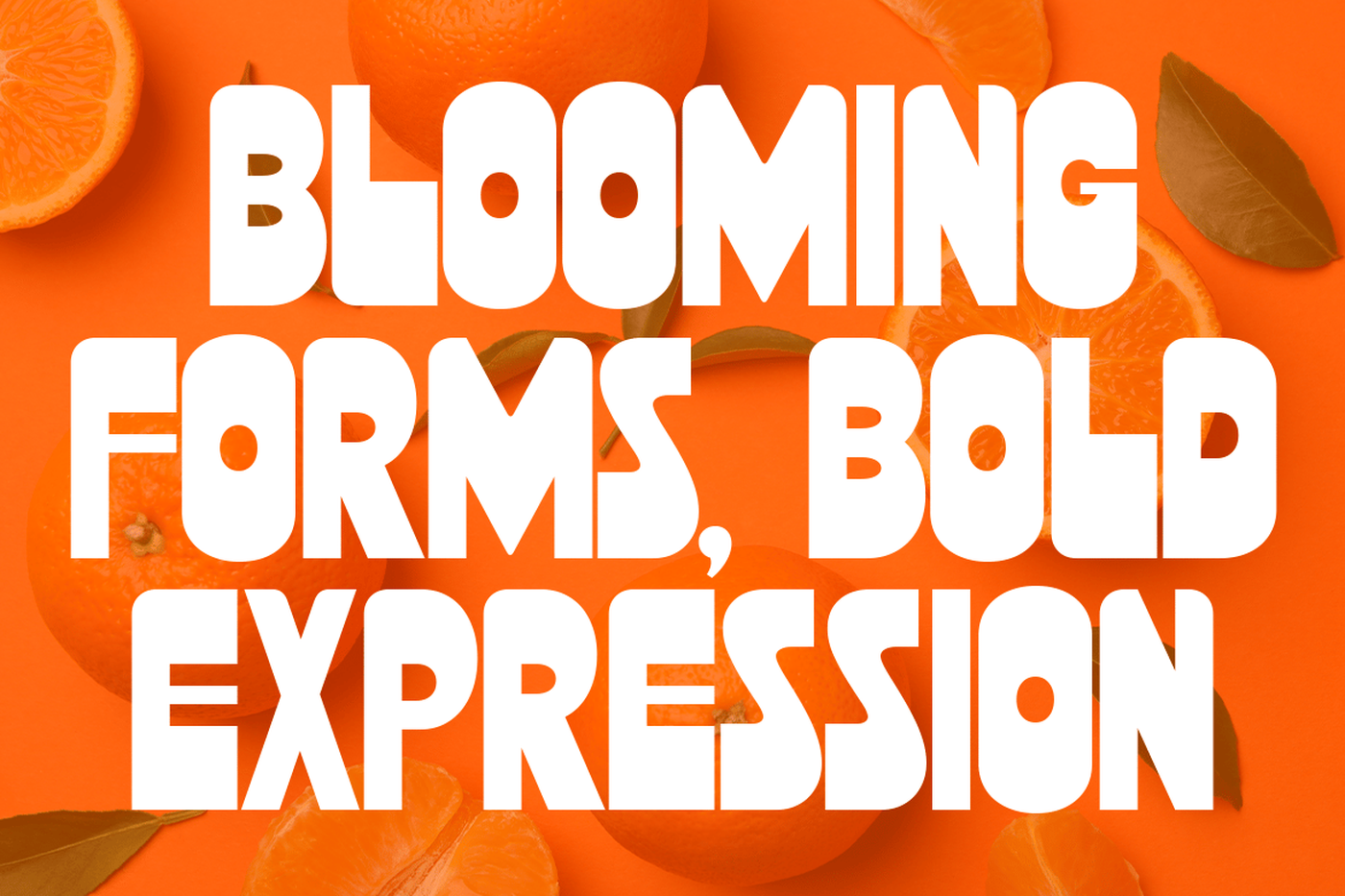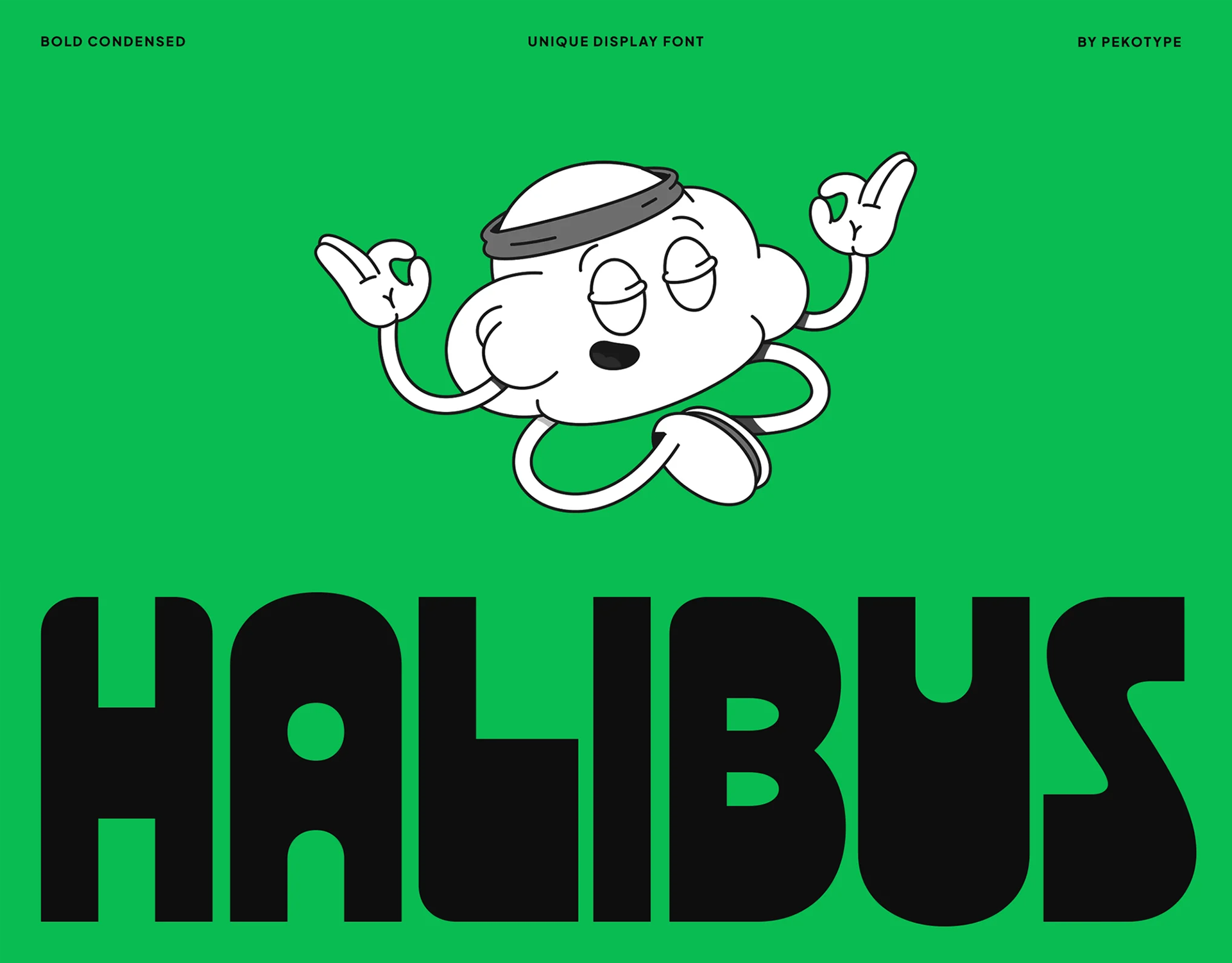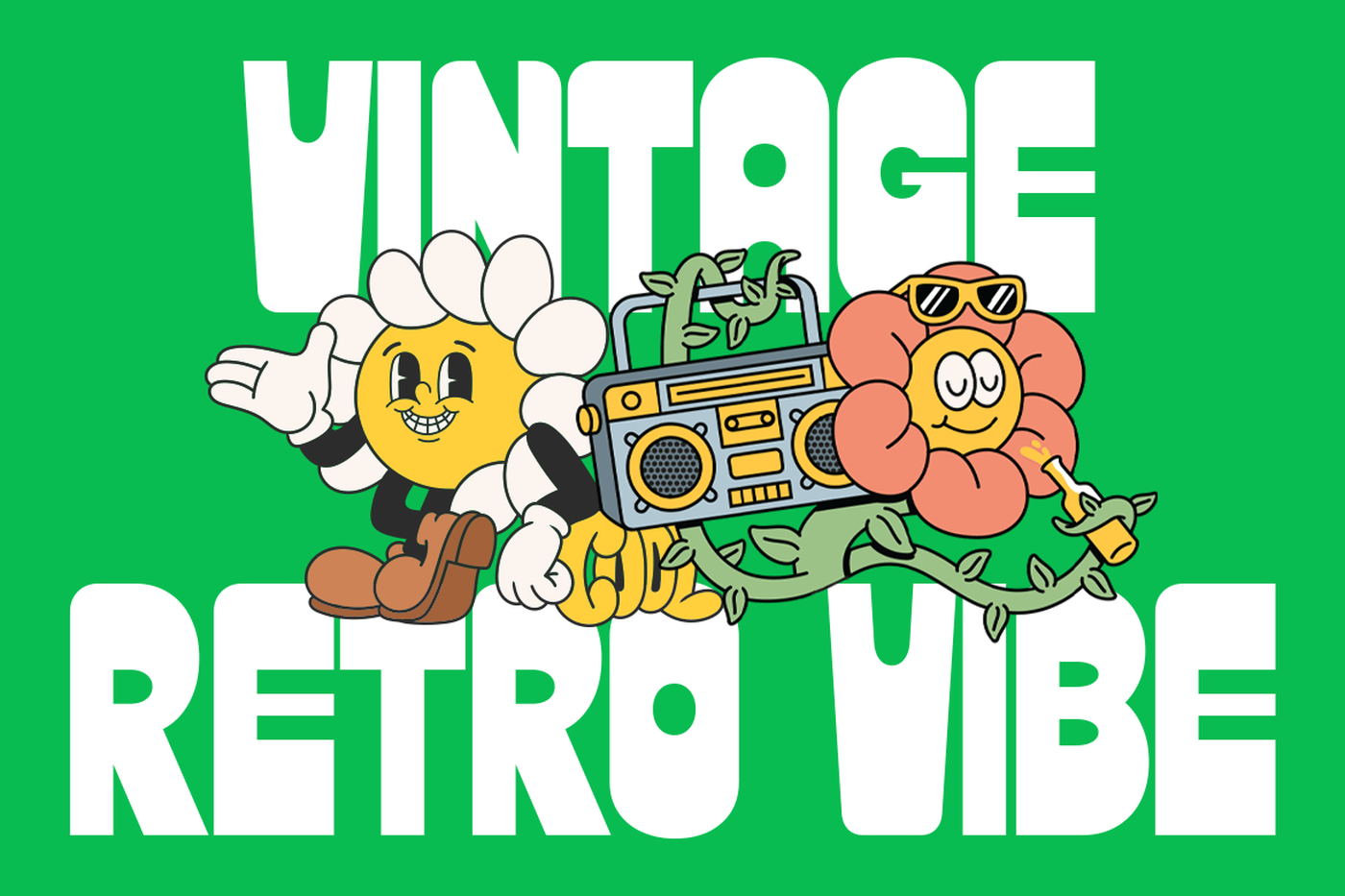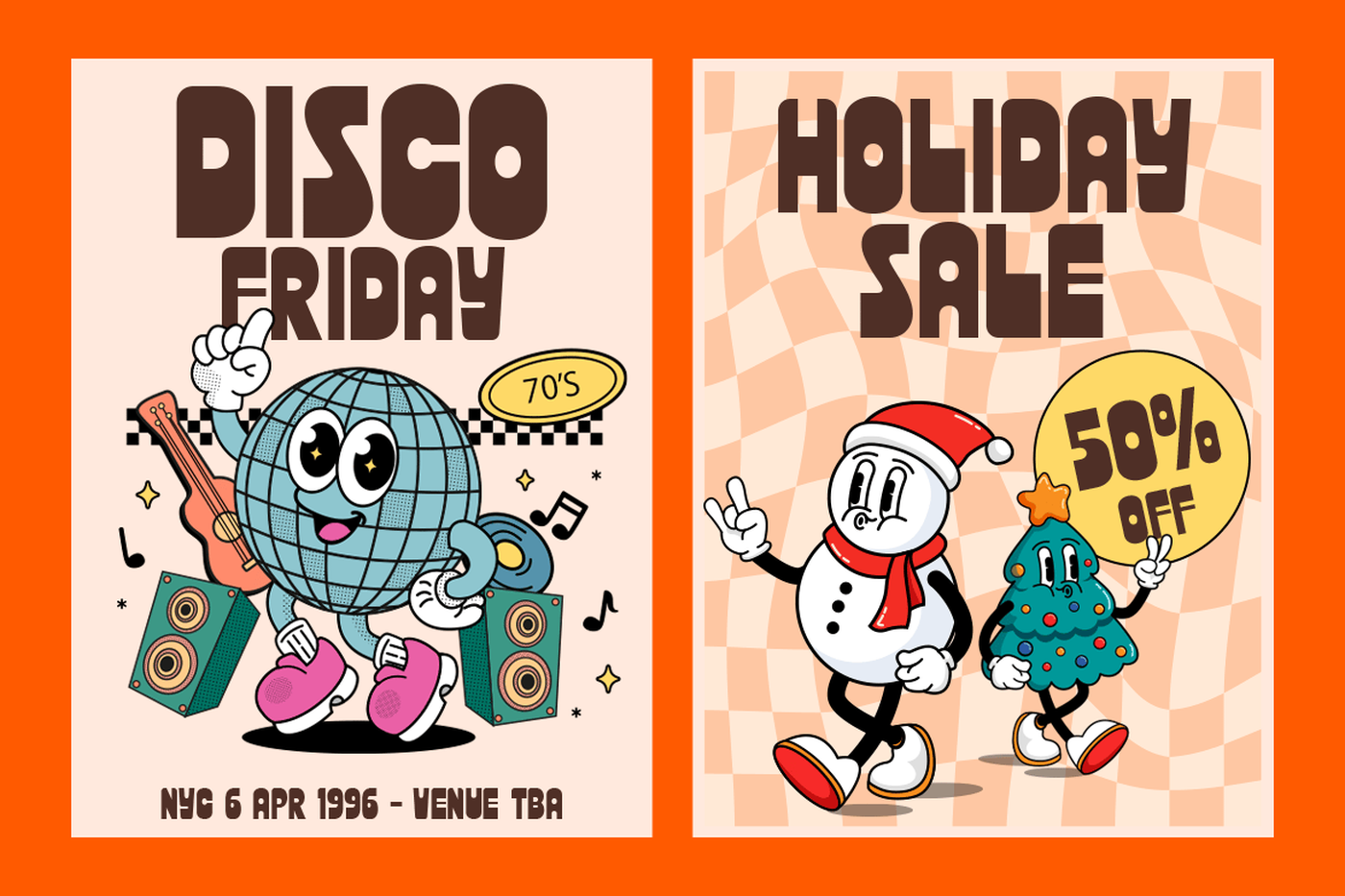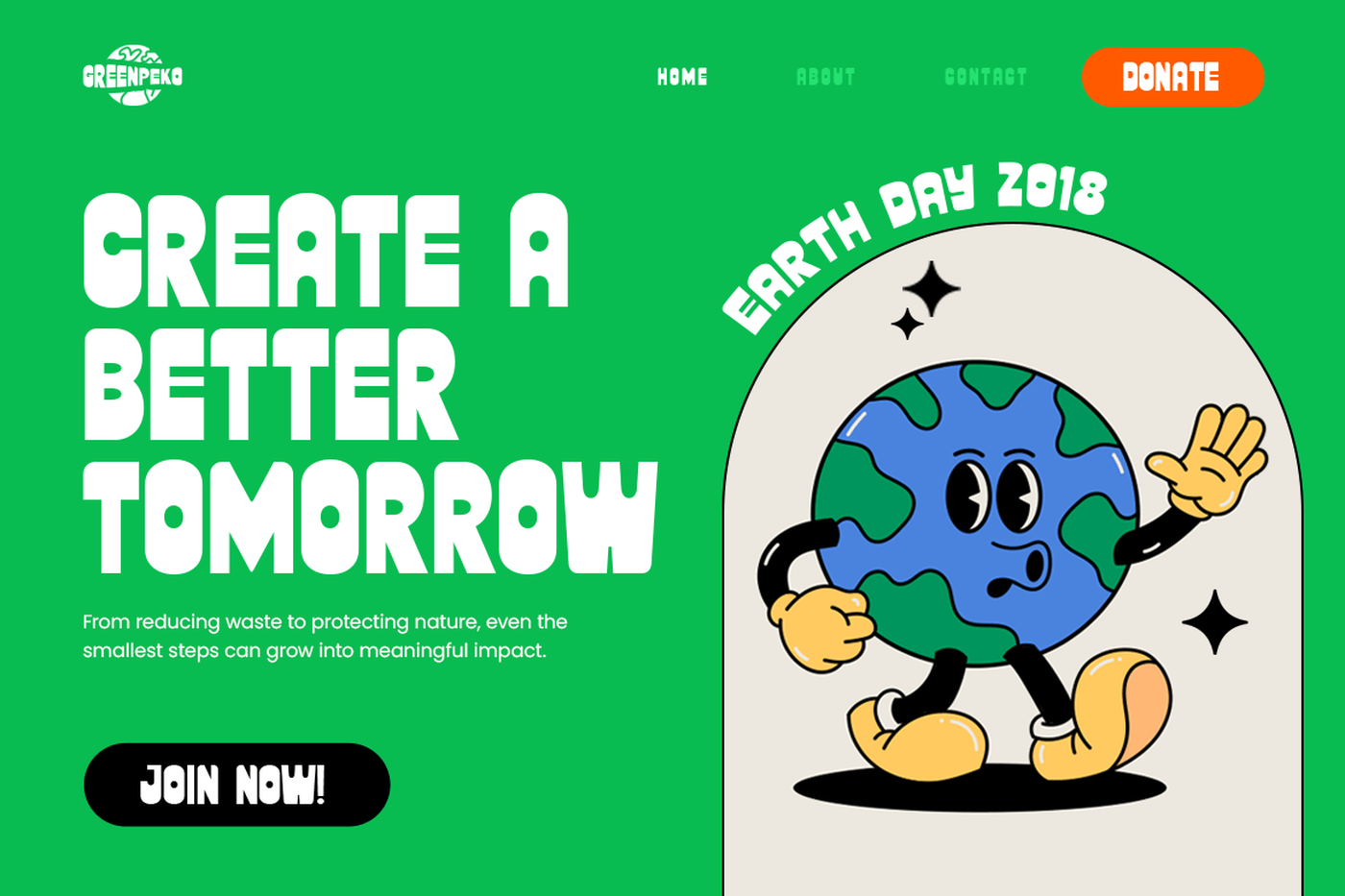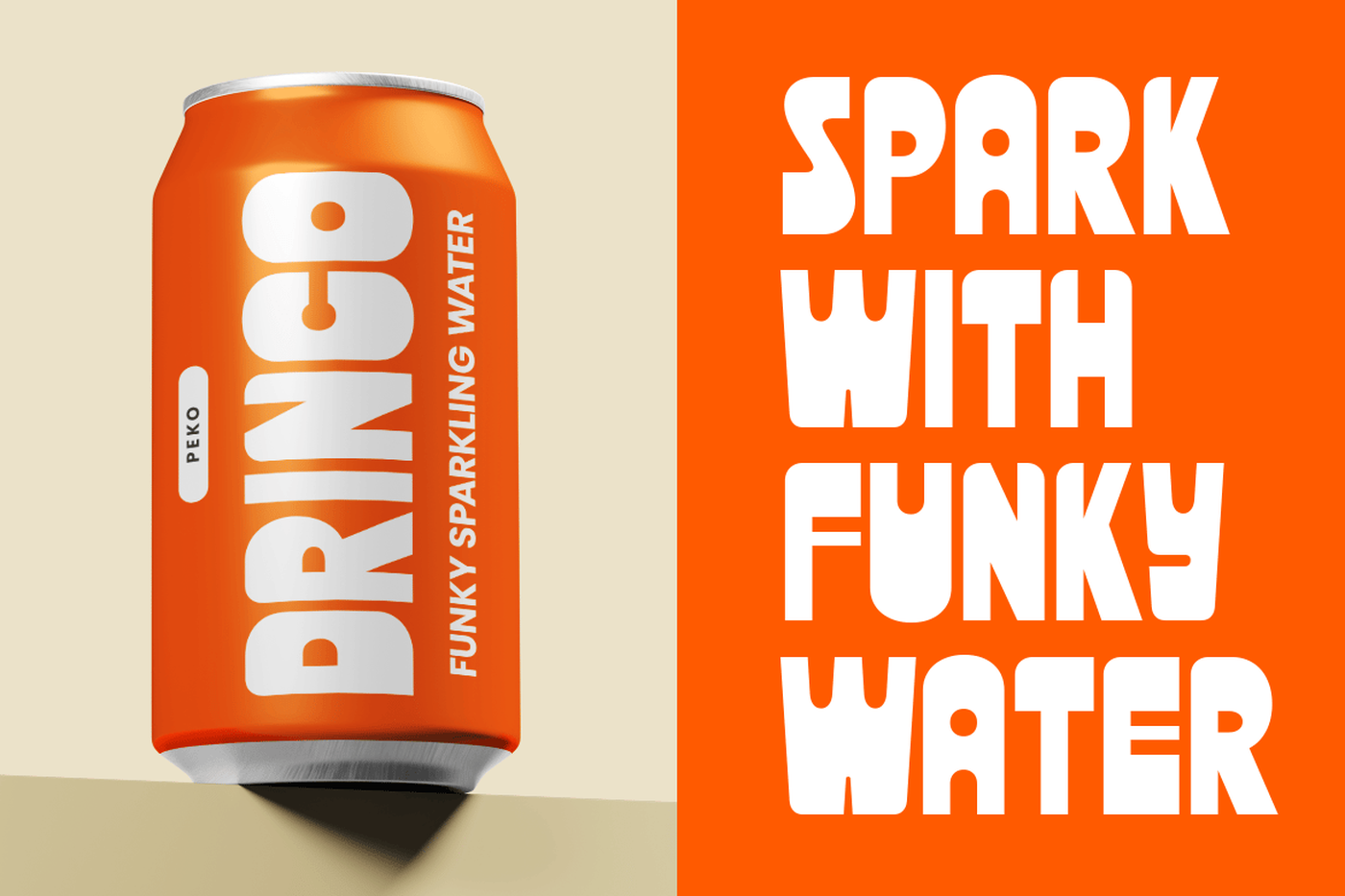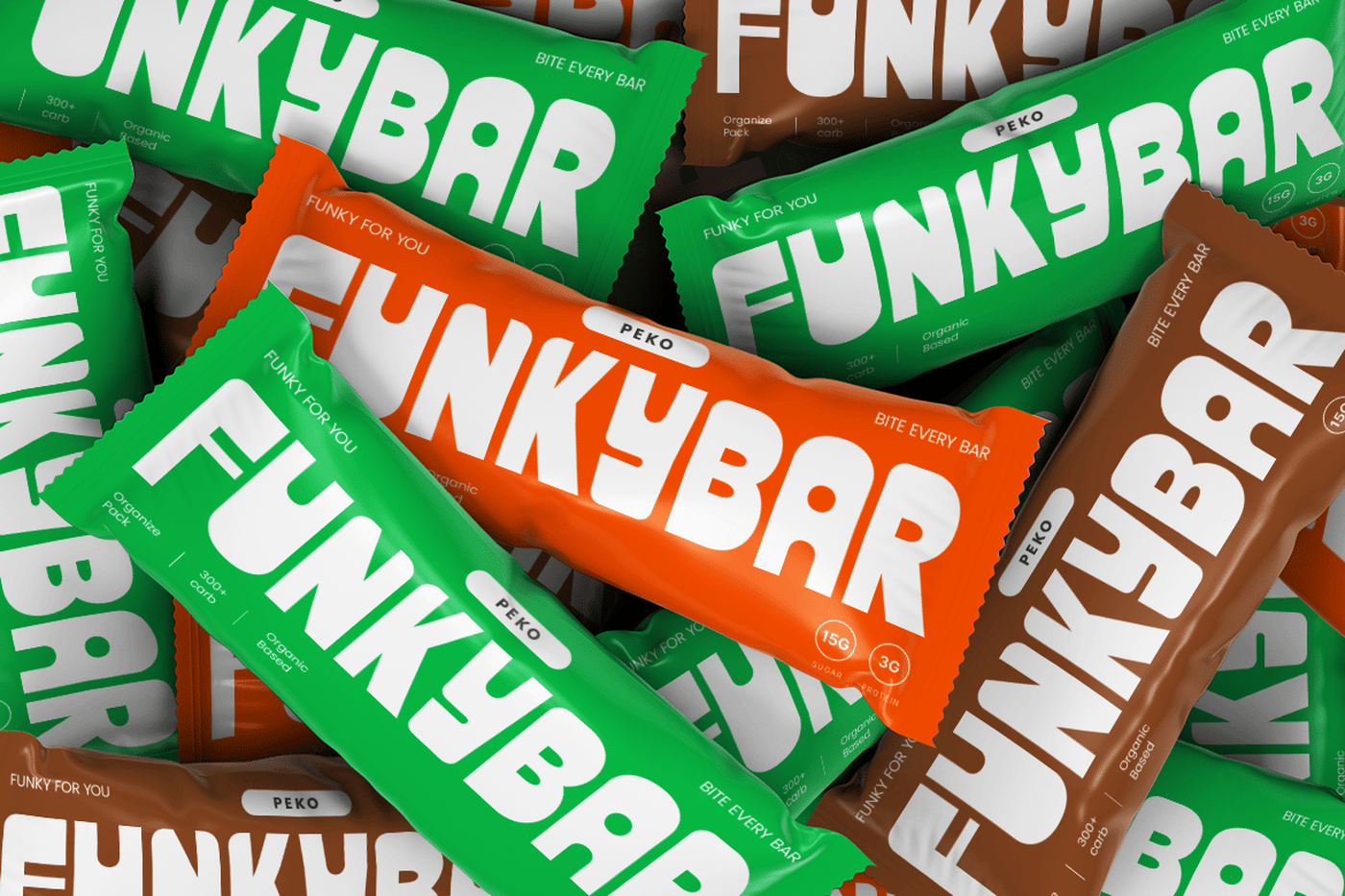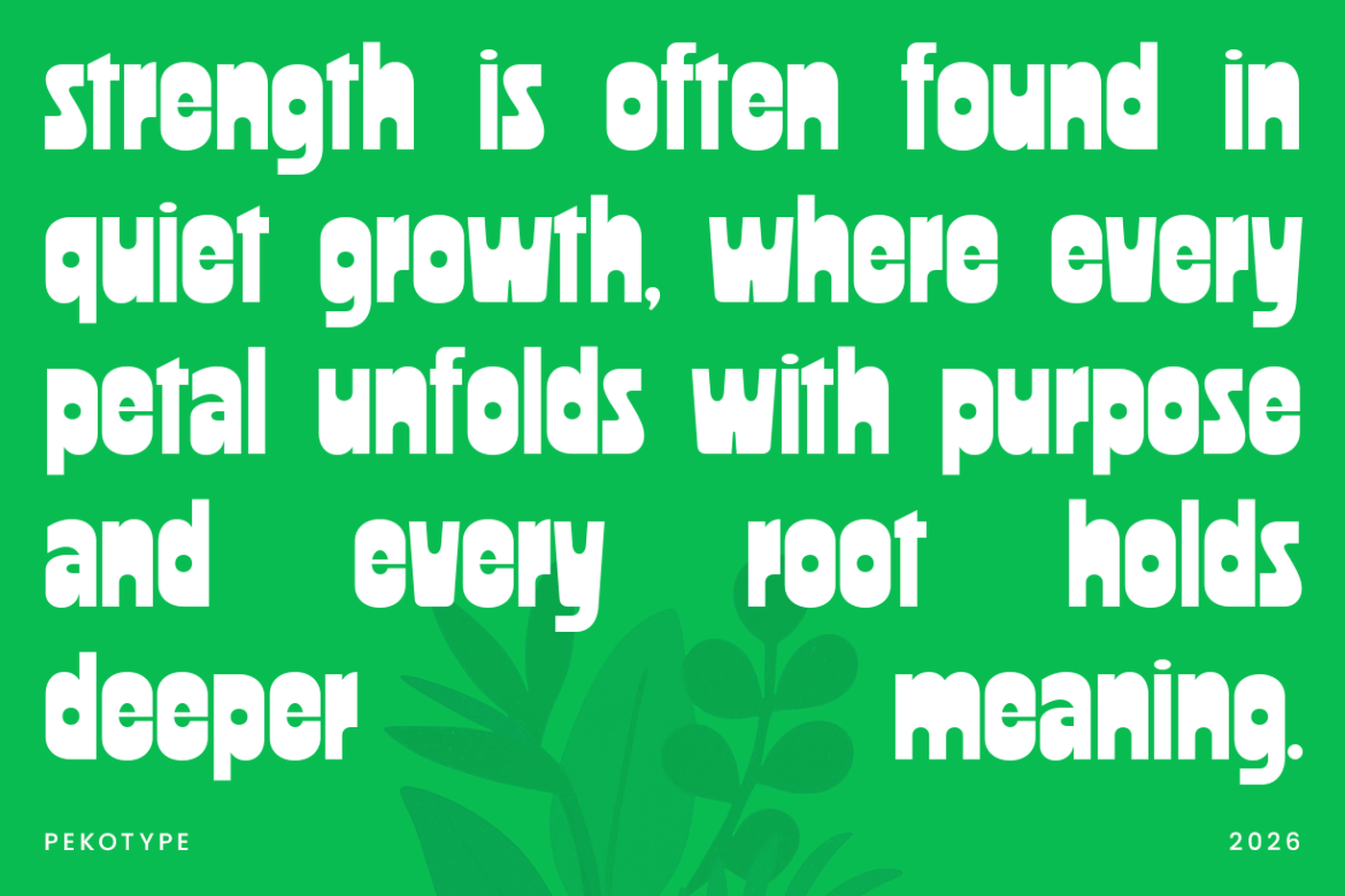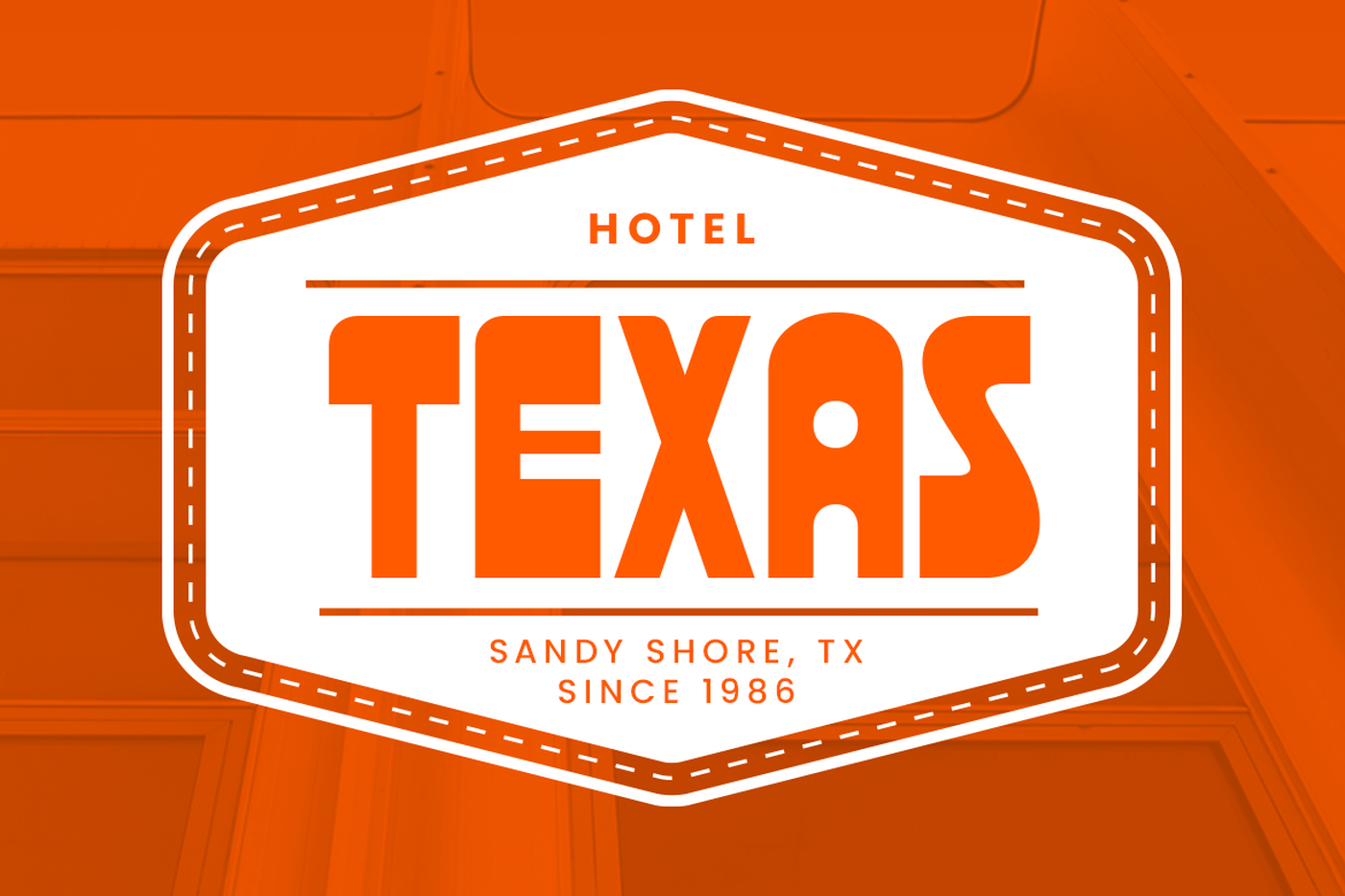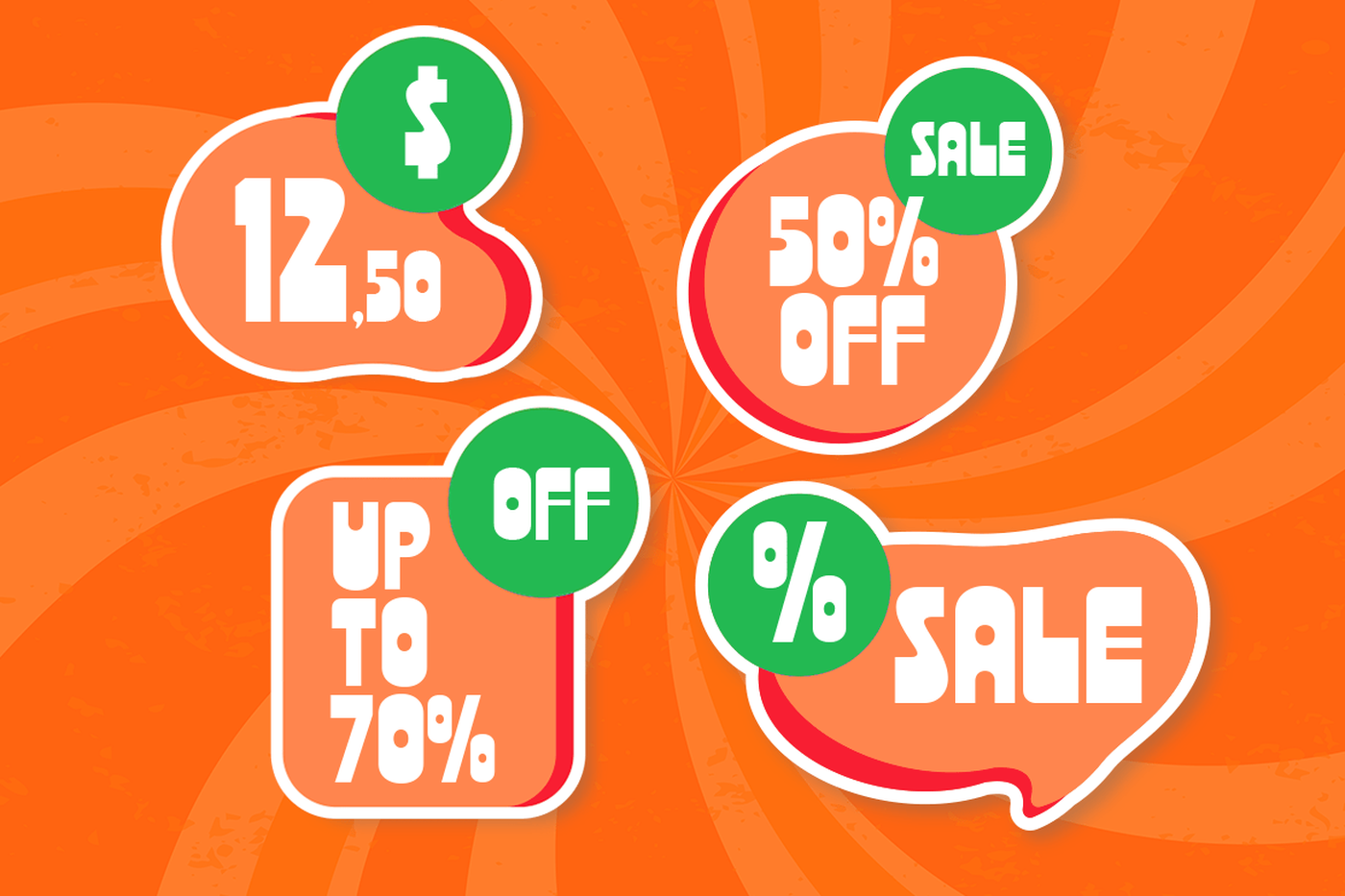
HALIBUS - Bold Logo Display Font
HALIBUS is a bold and playful display font with soft, rounded shapes and a strong, friendly vibe. The letters feel chunky and fun, making your text look lively without losing readability. Its unique form gives a cheerful and expressive personality, perfect for designs that want to stand out in a fun and modern way. With uppercase, lowercase, numbers, symbols, and multilingual support, HALIBUS is ready for all kinds of creative projects.
This font is great for posters, branding, packaging, product labels, and social media content. It works especially well for food brands, snacks, drinks, kids-themed designs, and retro-style visuals—just like the preview with candy packaging, beverage cans, and bold promo graphics. Whether you're creating a logo, a sale banner, or a playful campaign, HALIBUS helps your design feel bright, energetic, and full of character.